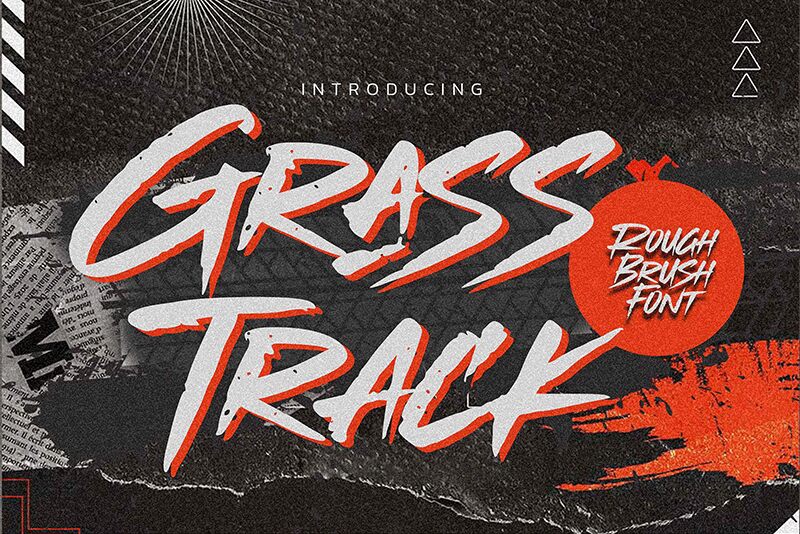
Grasstrack
Grasstrack by Gassstype embodies the raw energy and freedom of hand-painted signage with its semi-bold brush style. This font's dynamic, flowing strokes and slightly textured edges evoke the spirit of artistic spontaneity while maintaining legibility. The organic quality of Grasstrack makes it an excellent choice for projects that require a touch of personality, such as branding, advertising campaigns, or editorial design where a distinctive voice is desired.
Its aesthetic appeal lies in its balance between rugged brush aesthetics and controlled typographic structure, making it versatile enough to suit both expressive designs and more subdued creative applications.